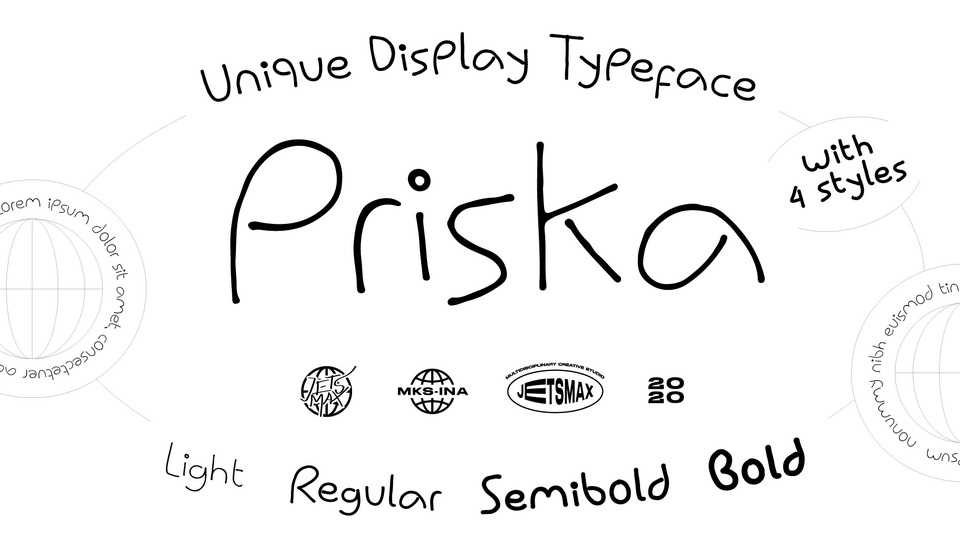
Download Priska typeface, a neat distinct hand-drawn display font family with four different styles. Priska will present a stylish and chic impression to any kind of design projects.
Designer: Jetsmax Studio